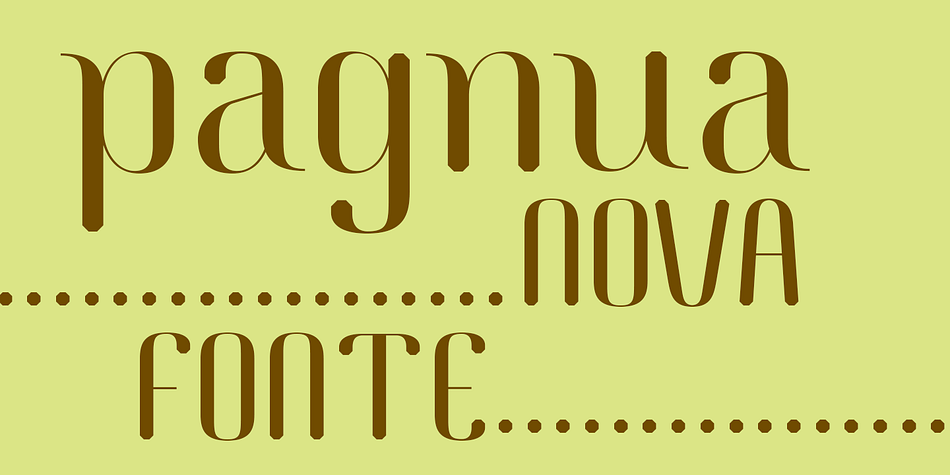
Pagnua
Designed by Leandro Ribeiro Machado, Pagnua is a sans serif font published by Leandro Ribeiro Machado.
Pagnua is a font for small texts and is ideal for embalage, advertising, publishing, logo, poster, signage.